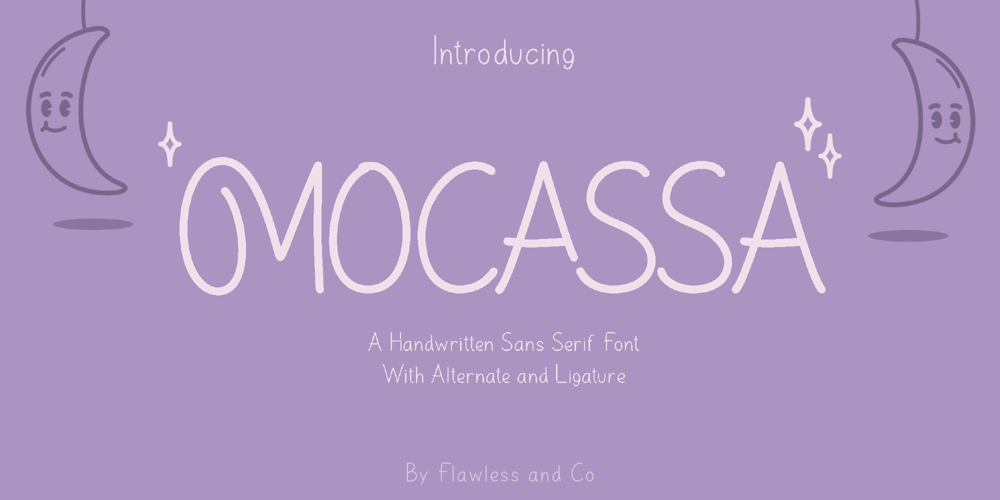
Mocassa
Mocassa font
Mocassa Font Family was designed by Achmad Yani and published by Flawlessandco. Mocassa contains 1 styles and family package options. Introducing “Mocassa” – a captivating handwritten sans serif font that combines the charm of handcrafted letterforms with the versatility of a modern sans serif typeface. There’s some connected letters and some alternates that suitable for any graphic designs such as branding materials, t-shirt, print, business cards, logo, poster, t-shirt, photography, quotes .etcThis font support for some multilingual. Also contains uppercase A-Z and lowercase a-z, alternate character, numbers 0-9, and some punctuation.If you need help, just write me! Thanks so much for checking out my shop!